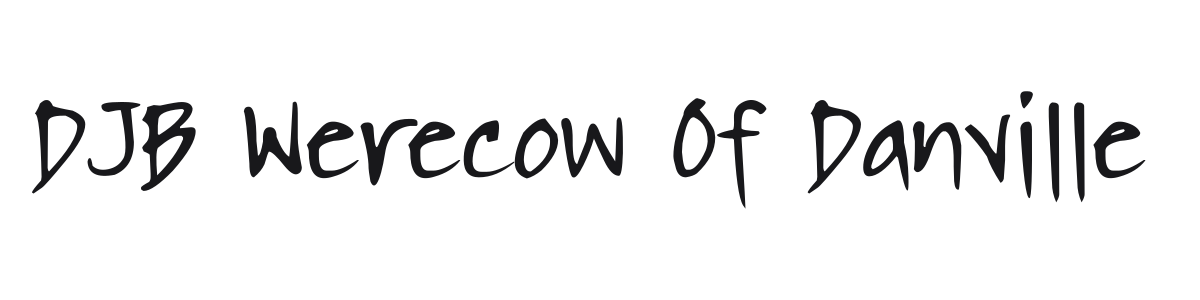
DJB Werecow Of Danville
DJB Werecow Of Danville is a bold, marker-style handwritten face from DJB Fonts with a loose, slightly unhinged energy that lives up to its strange name. The letterforms are thick and casual, with enough quirky irregularity to feel genuinely hand-lettered rather than digitally smoothed. Works well for headlines, cards, and informal layouts where playful personality takes priority over polish.